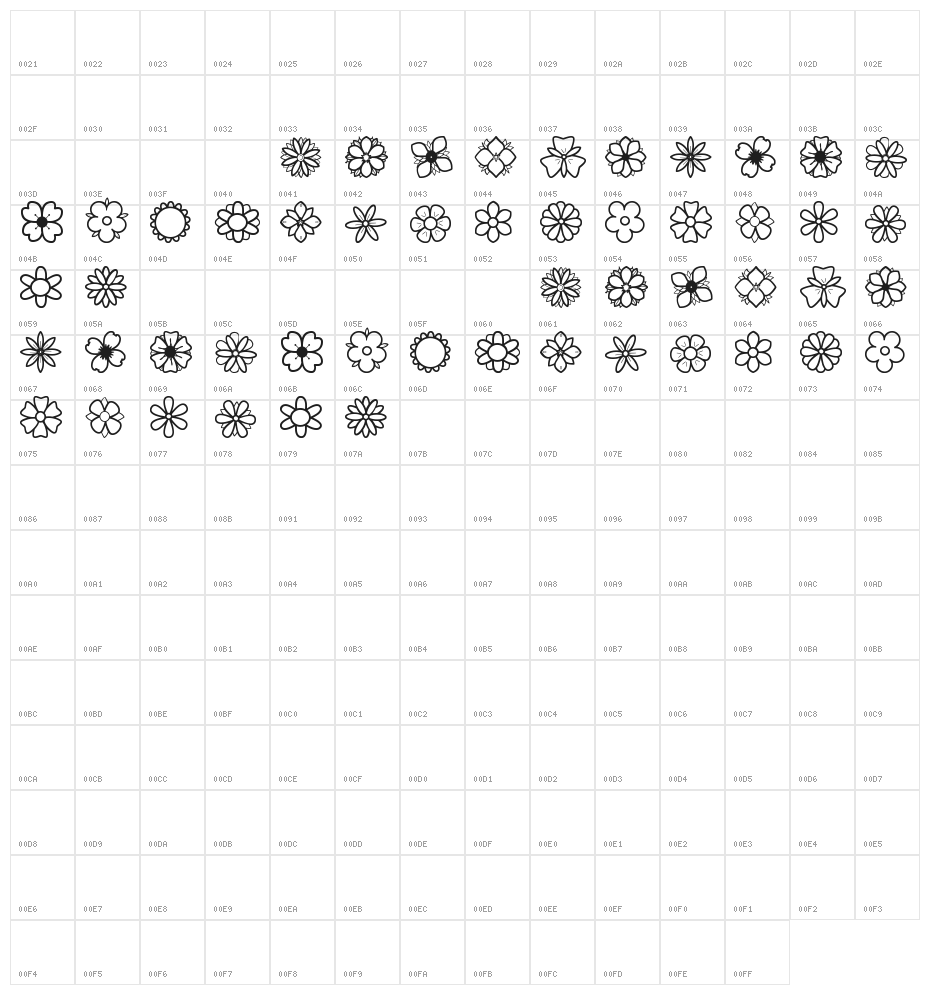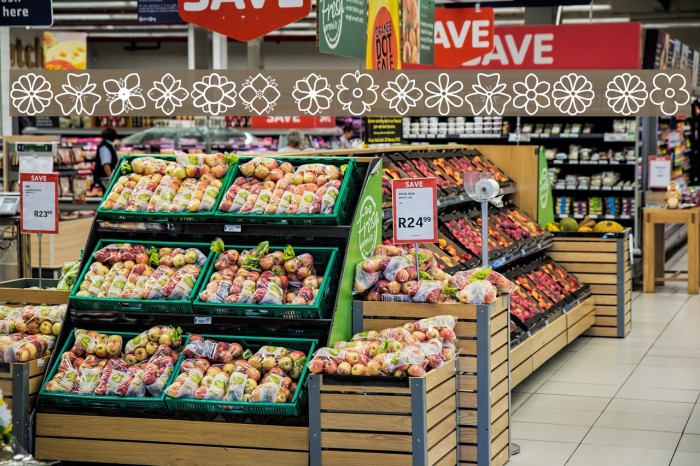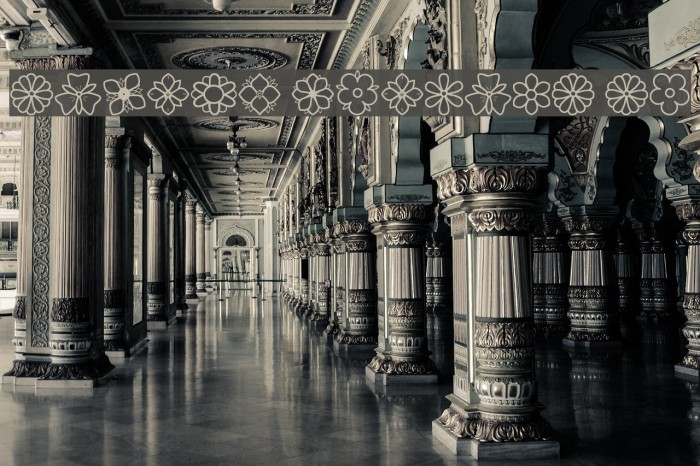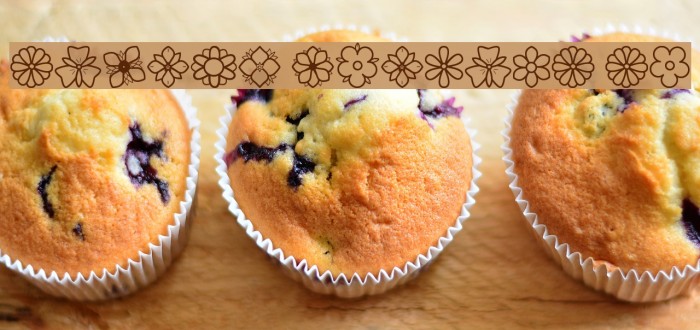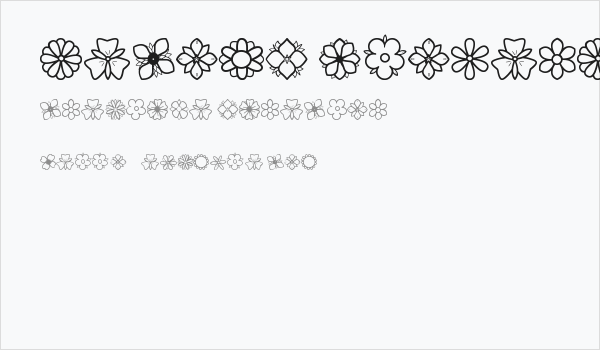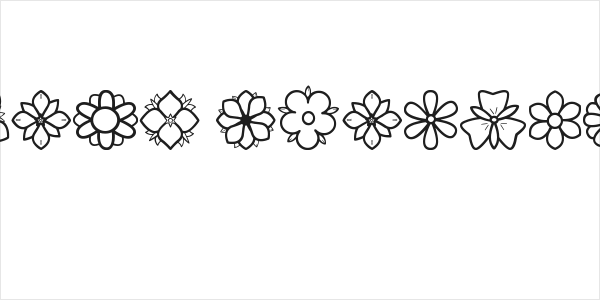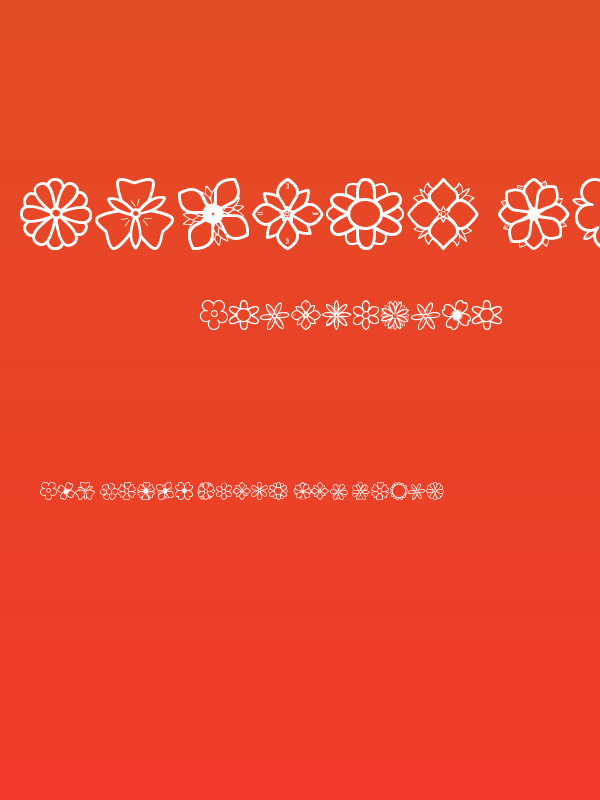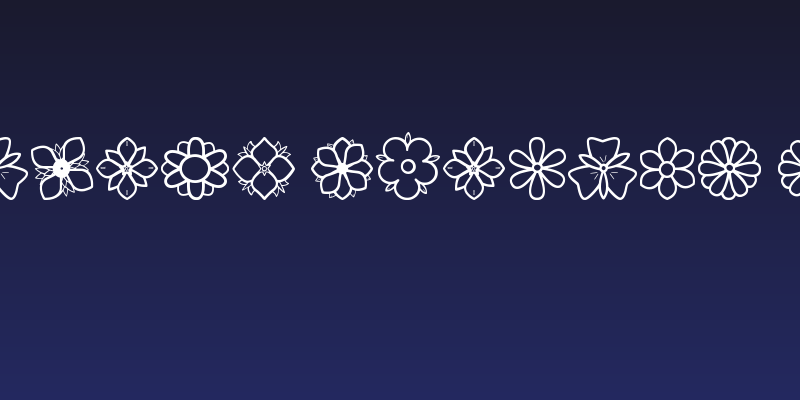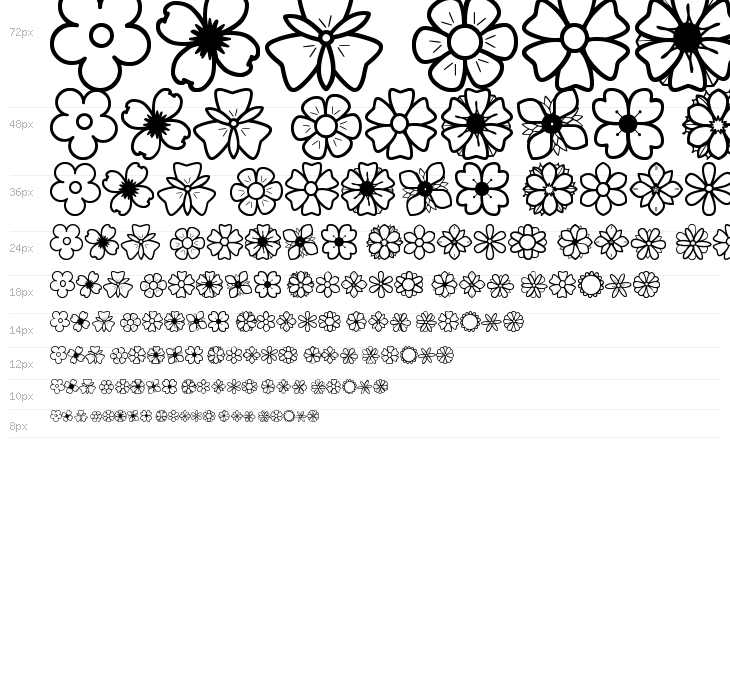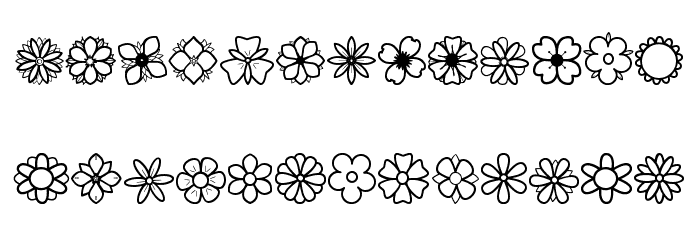
Second Flowers St Font
Second Flowers St Description
A decorative font composed entirely of hand-drawn flower illustrations, each character represented by a unique floral design with varying petal shapes and outlines. The style is playful and organic, with consistent line weight and no filled areas, giving a light and airy appearance.
| Overall Style | Decorative, Playful, Organic |
| Use Case | Decorative elements, Borders, Thematic accents |
| Proposed Projects | Greeting cards, invitations, scrapbooking, decorative borders, childrenΓ’β¬β’s projects, spring or garden-themed designs. |